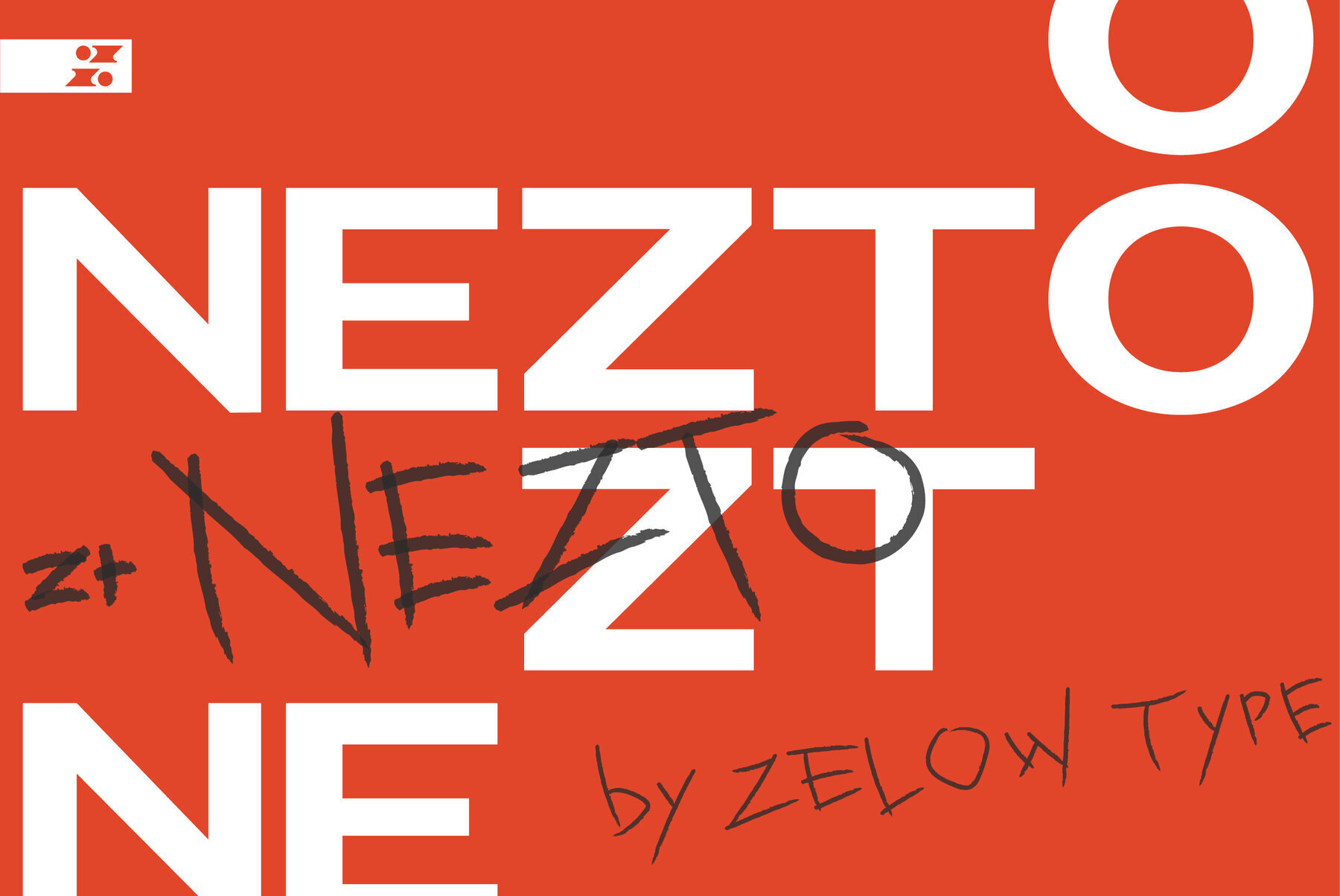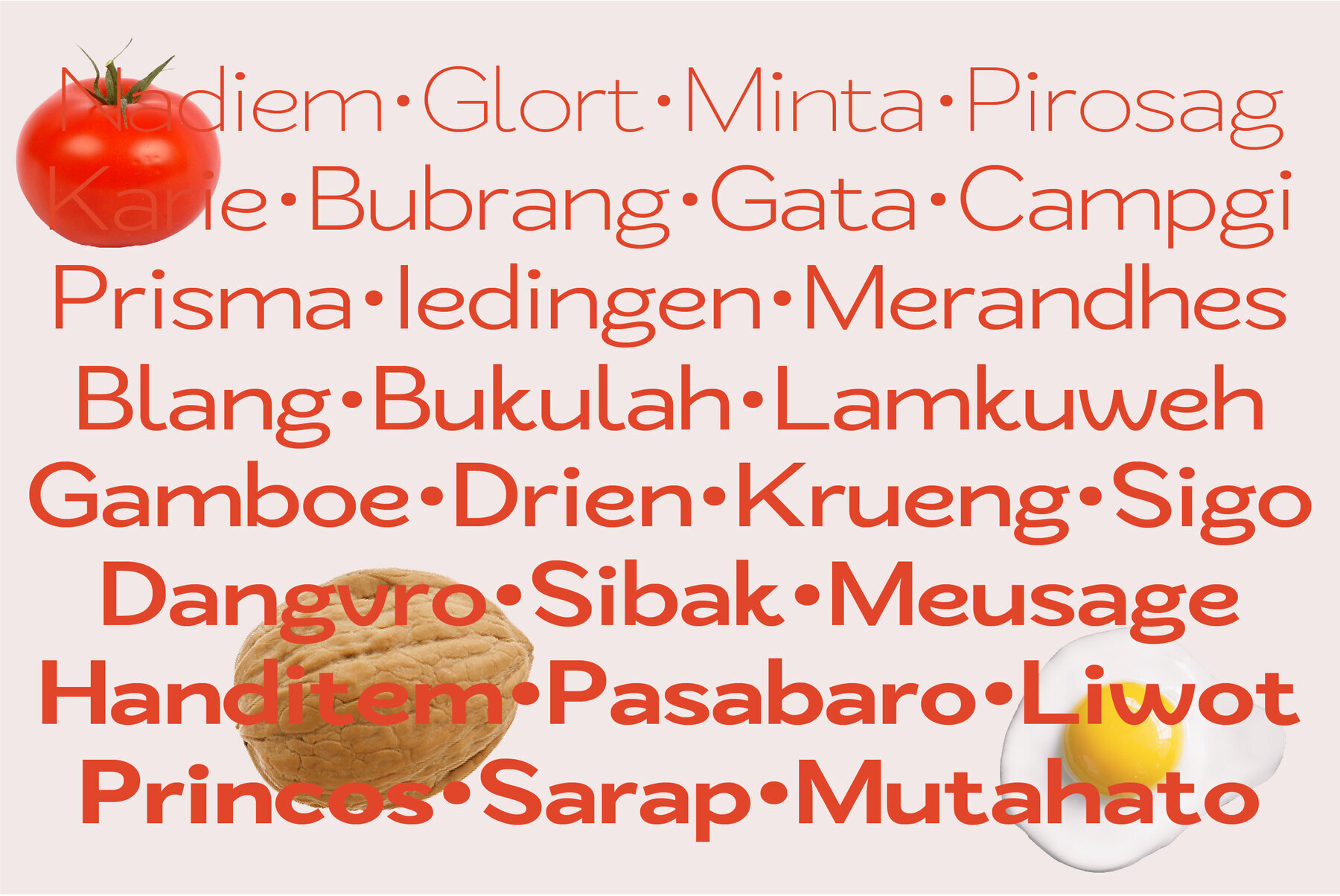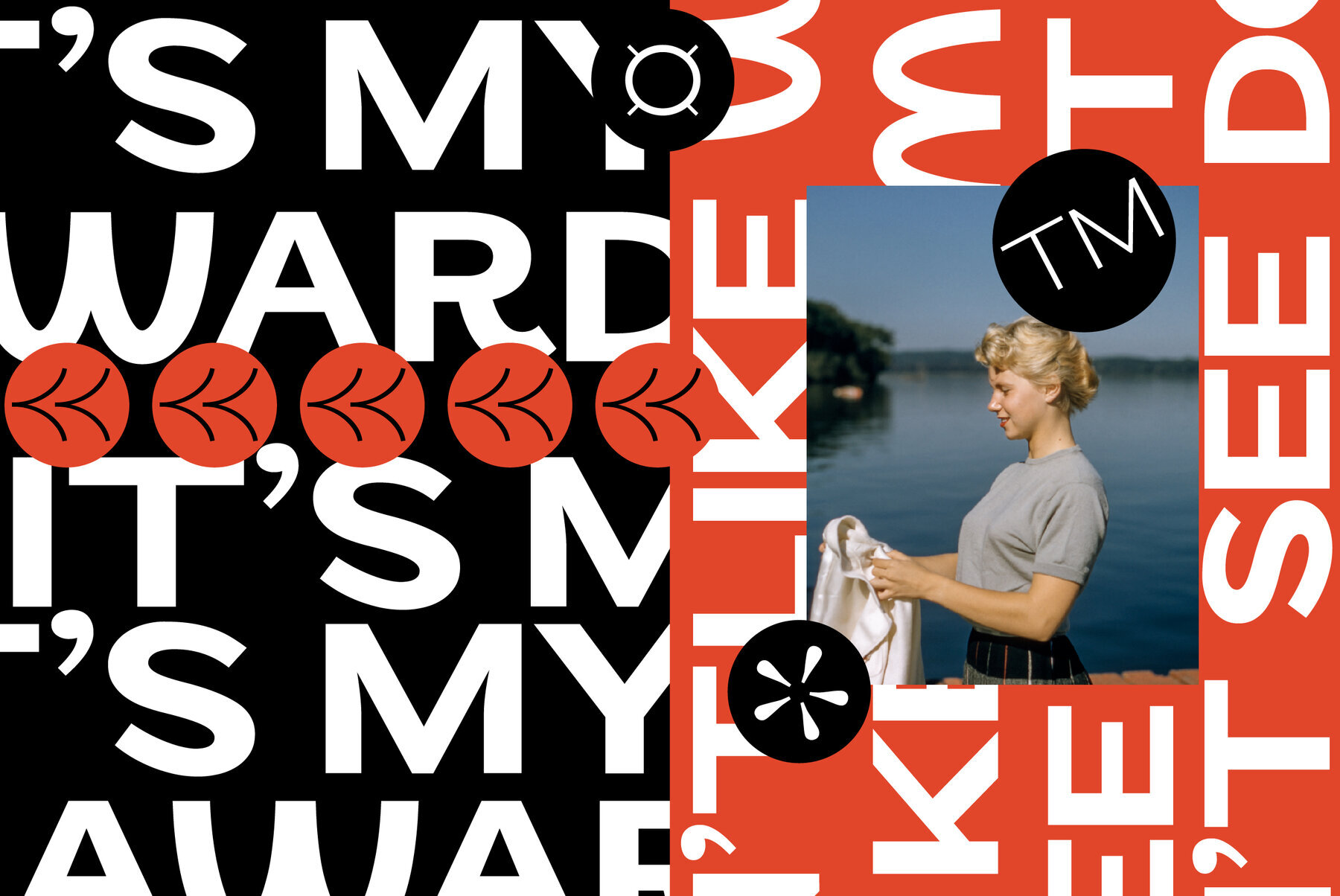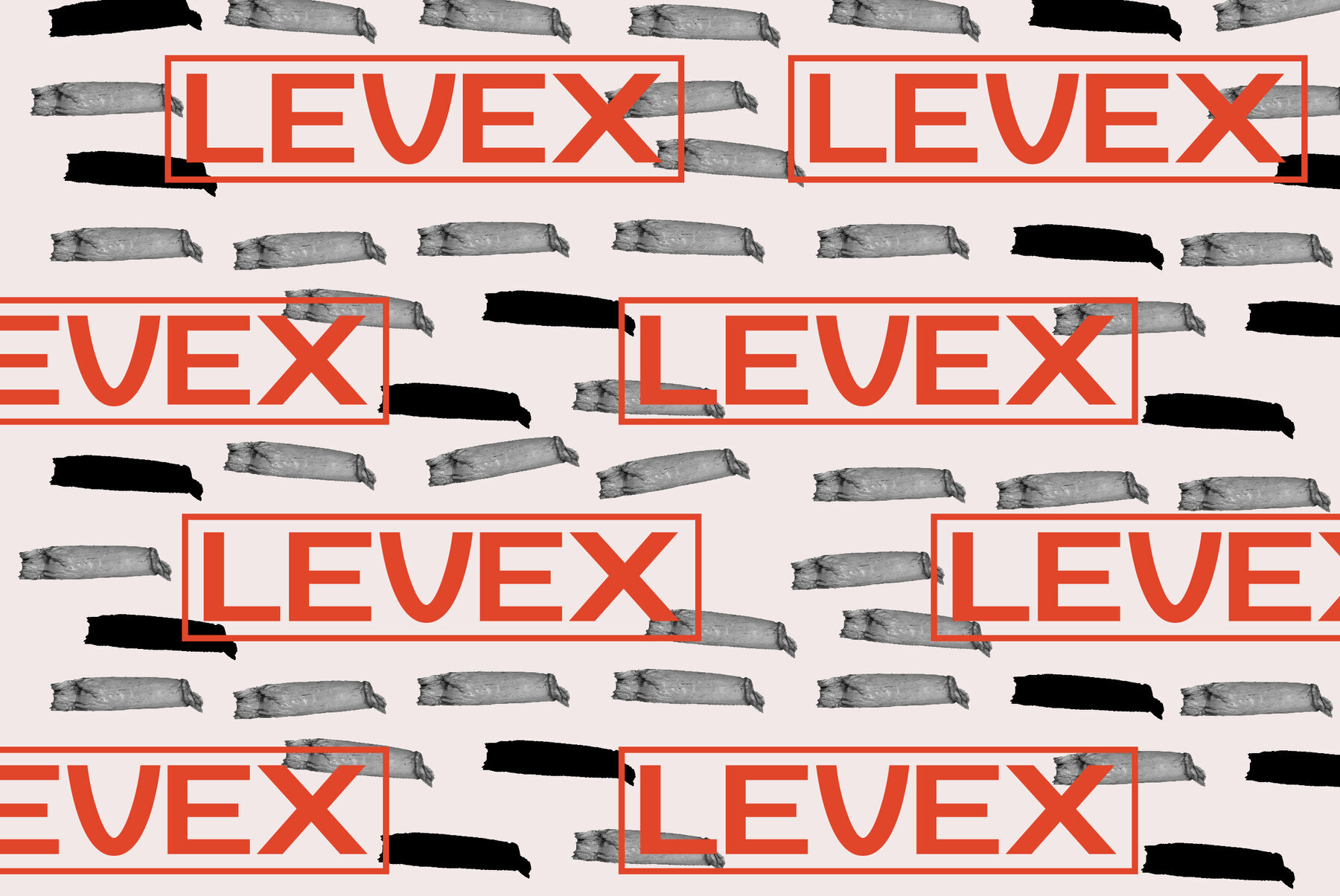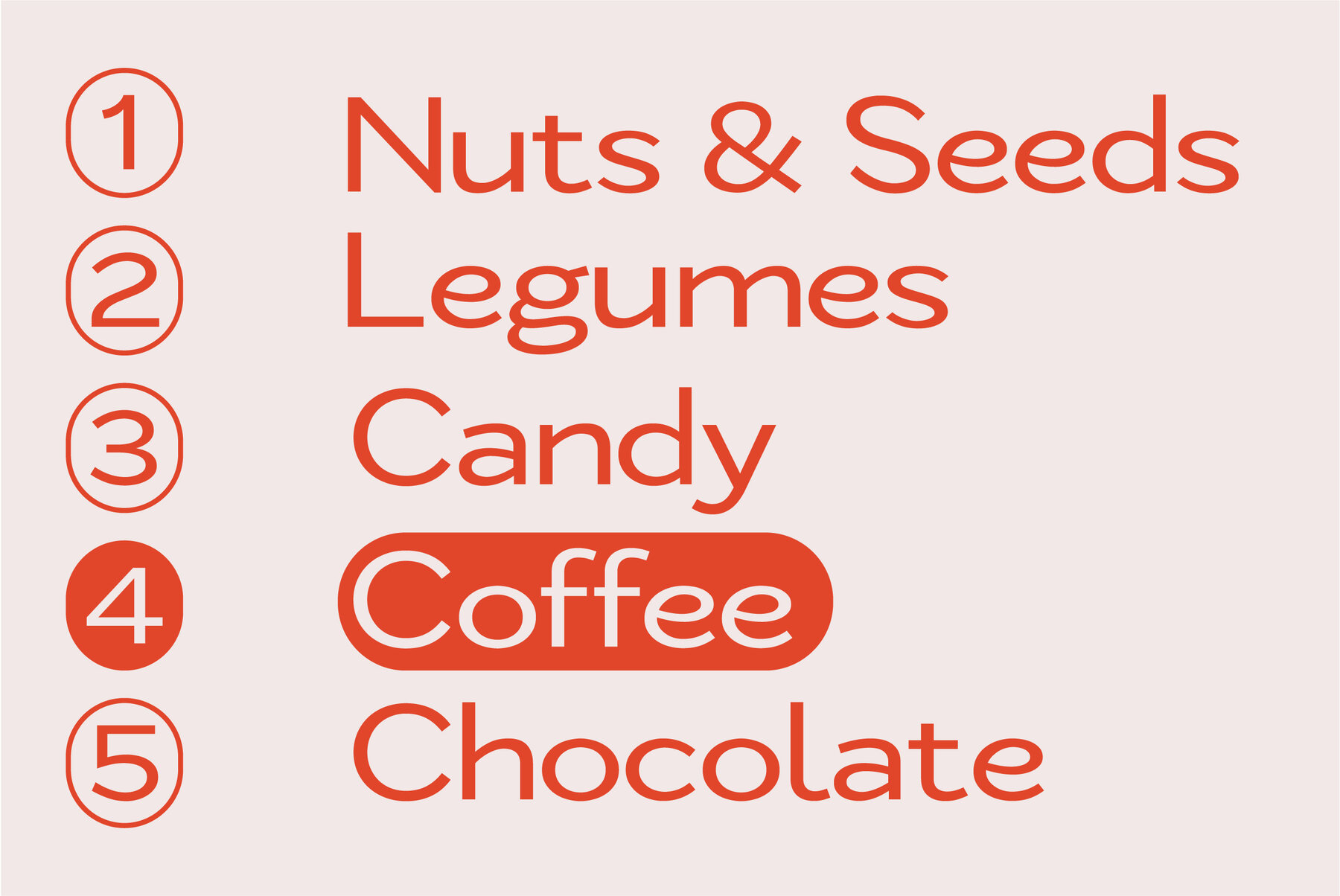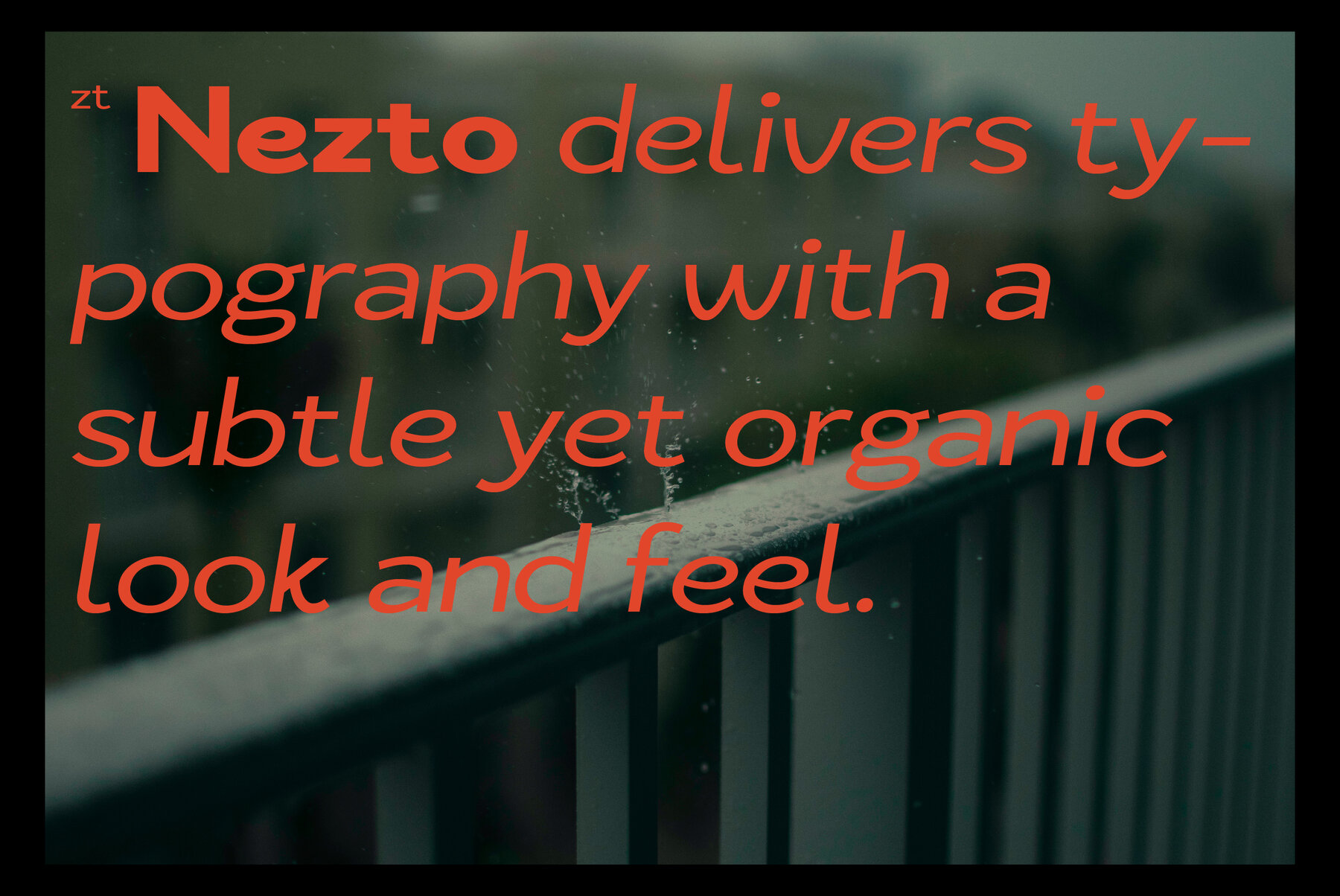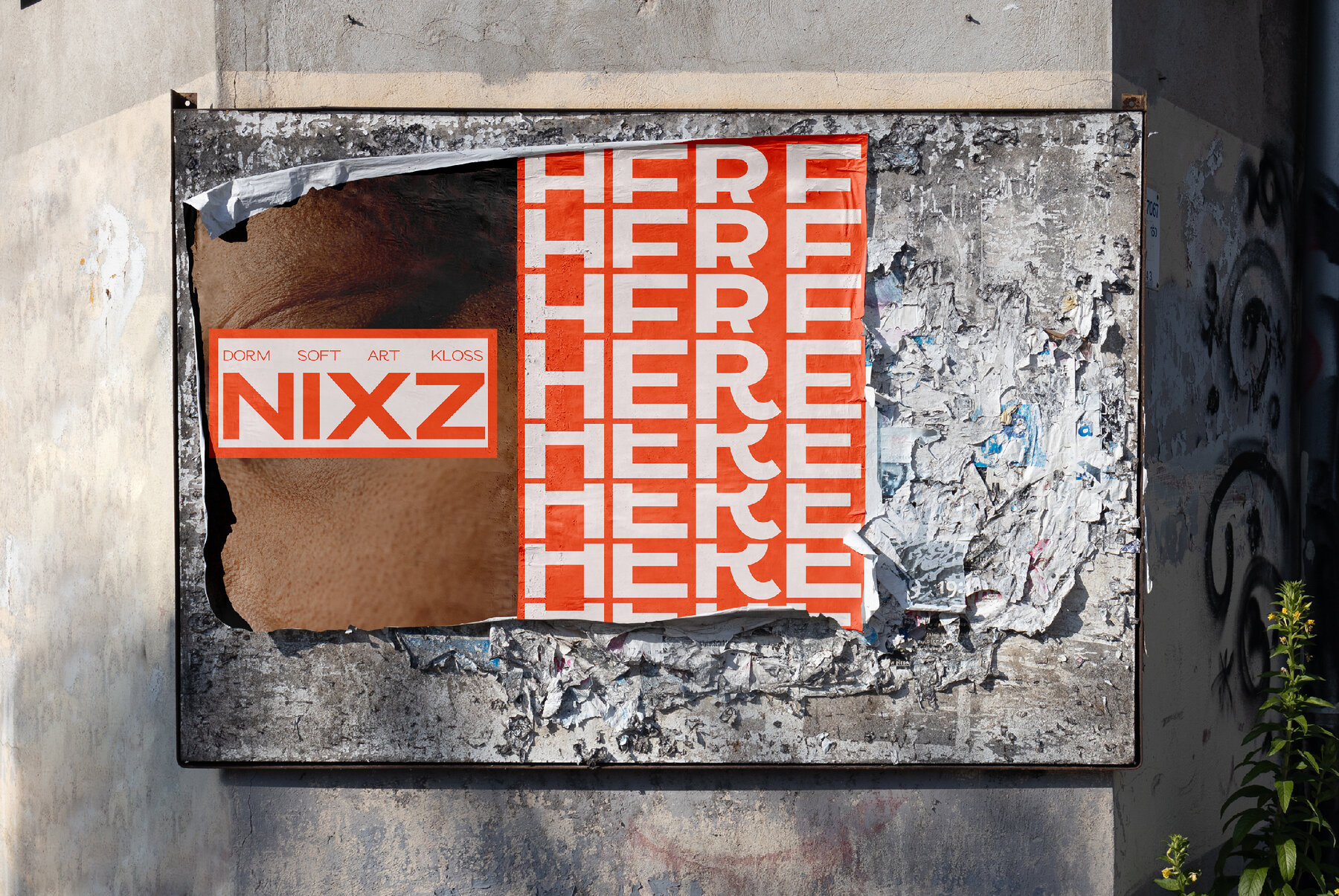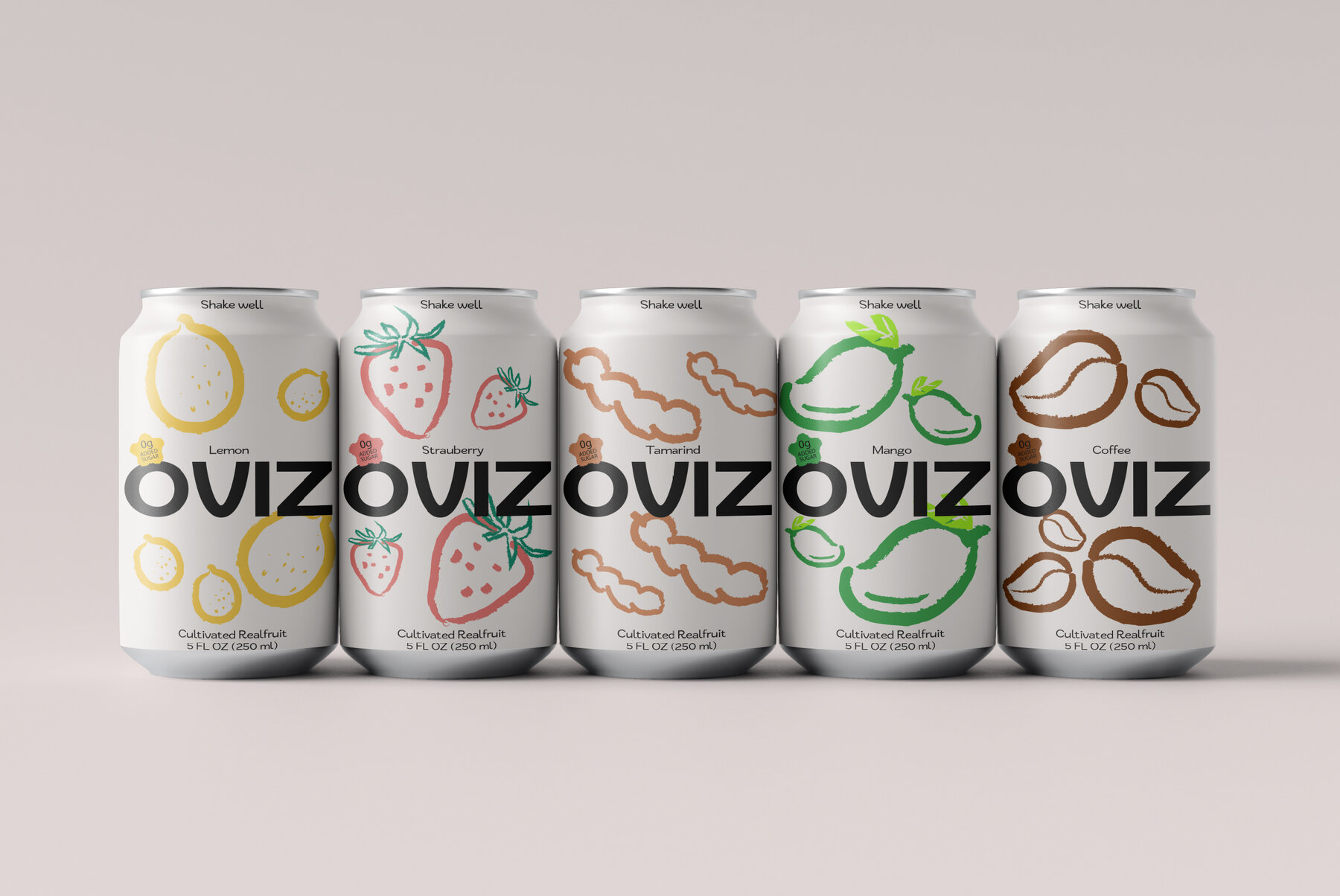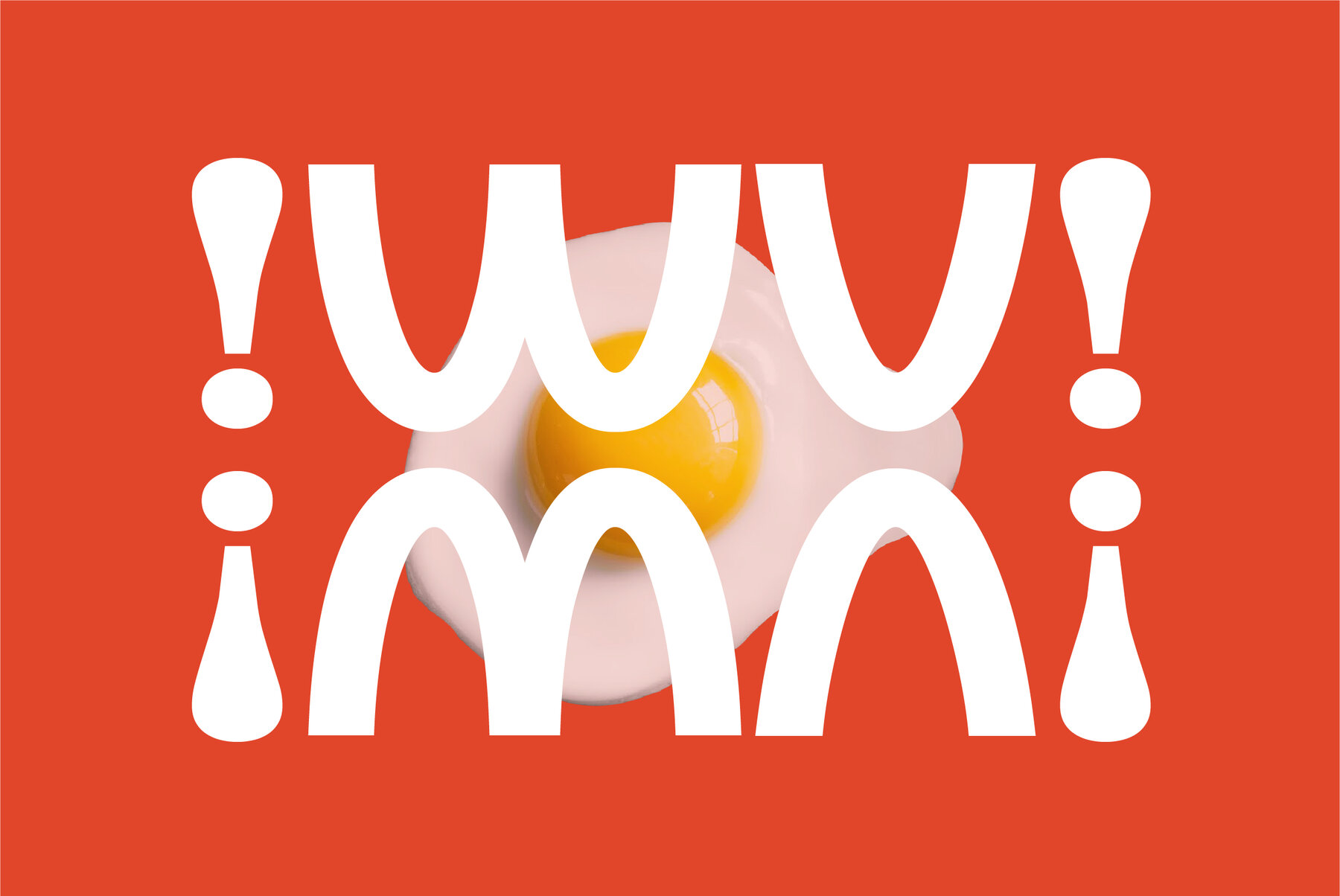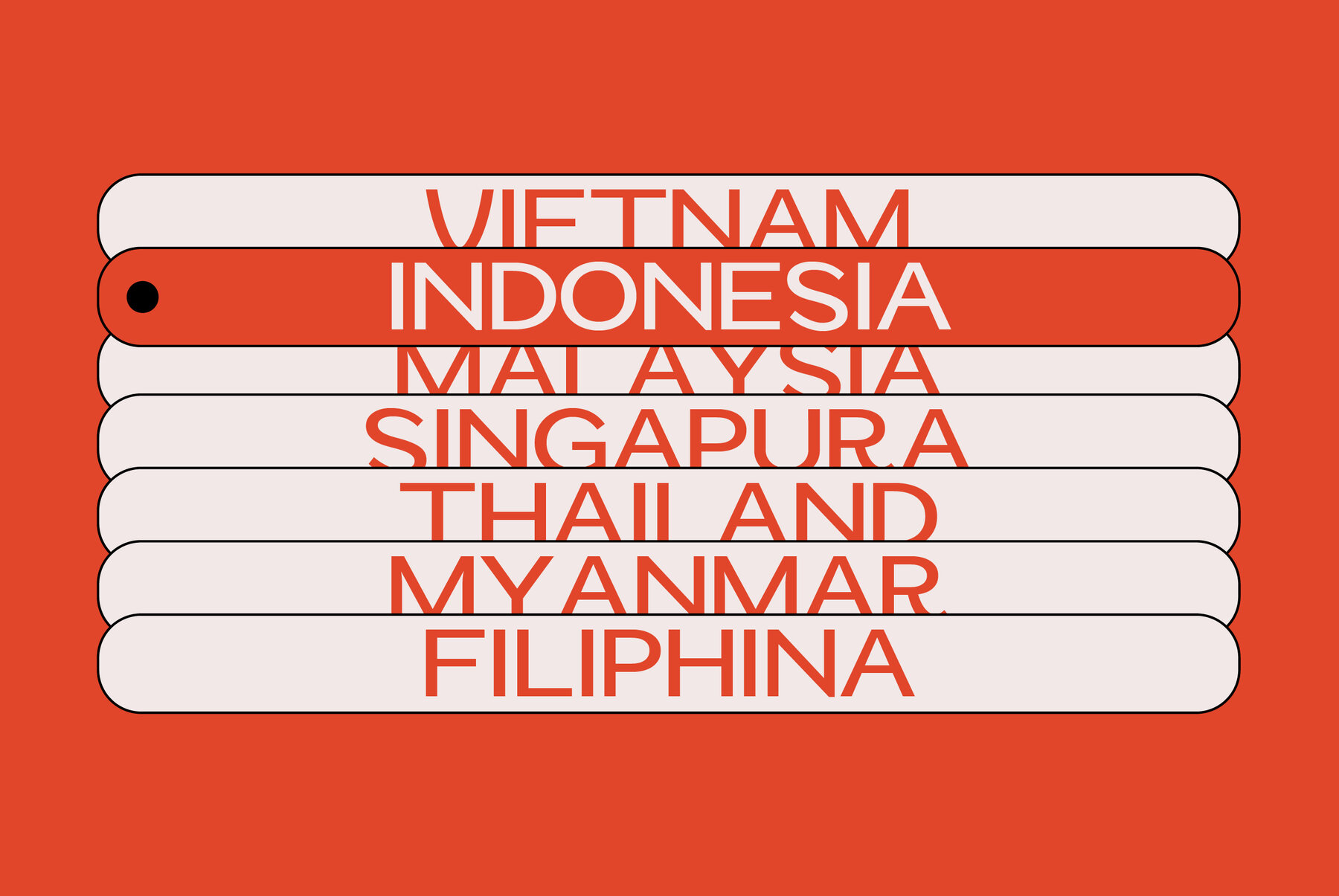
ZT Nezto Font
ZT Nezto is a sans-serif font design that focuses on curved areas, bringing out an elegant and refined style. The emergence of this idea was due to the constraints when designing with W&V letters which were very difficult to combine with other letters, and also the desire to present new elements in the world of typography, thus making each design more unified between letters.
ZT Nezto design with this charming curved shape and still maintains the identity of each weight so it is very beautiful to apply to web design, packaging, or branding. ZT Nezto is a very useful typeface for you and it also comes in eight weights with matching italics and comes with a variety of open type features.